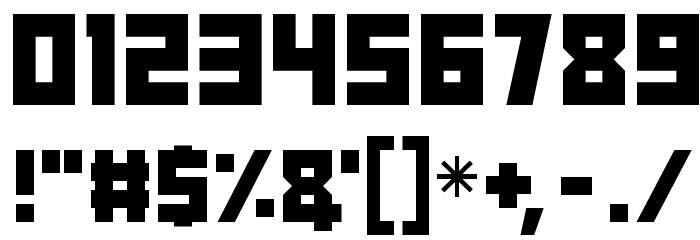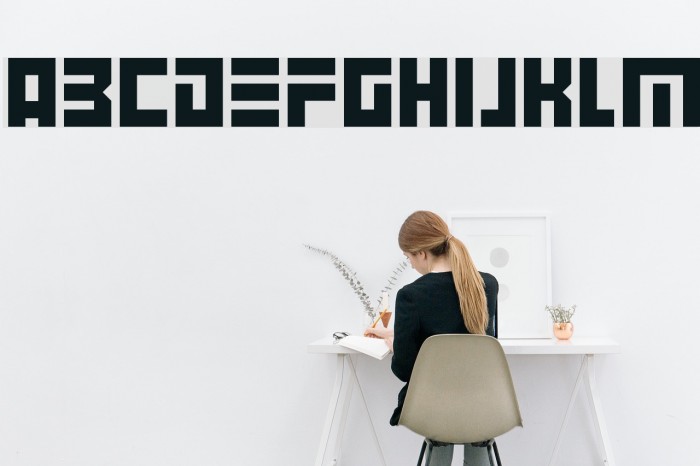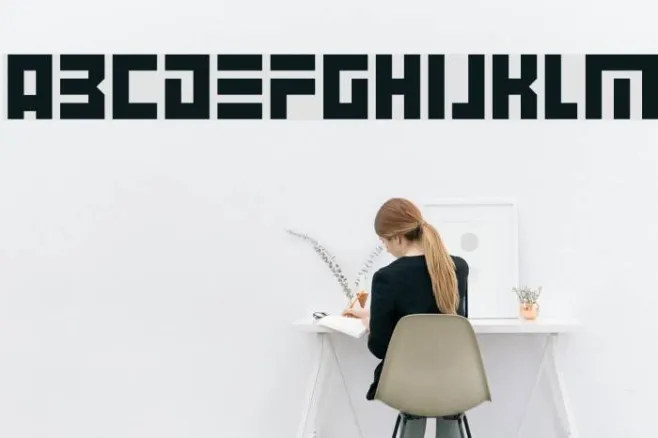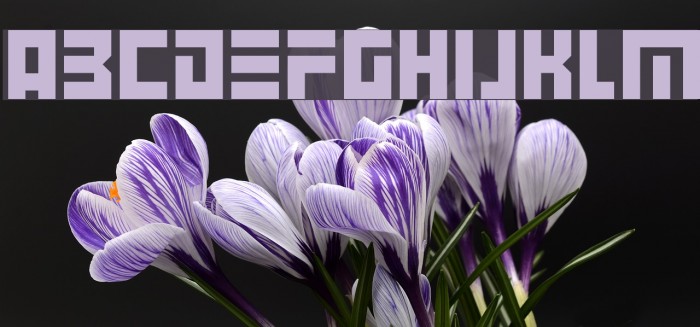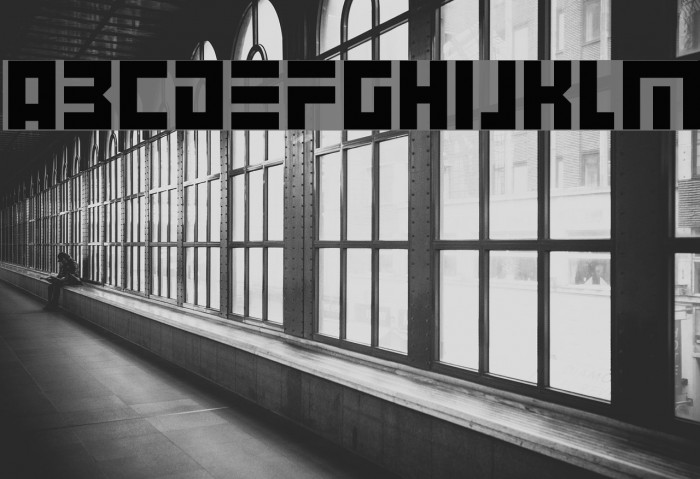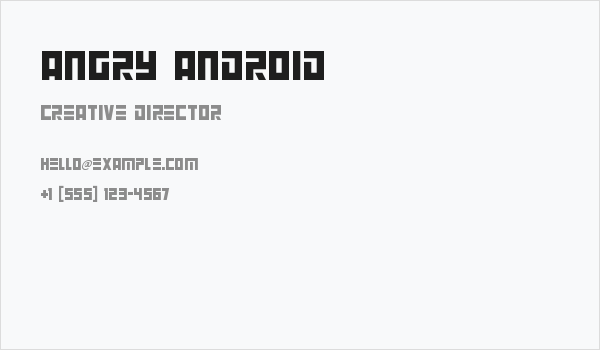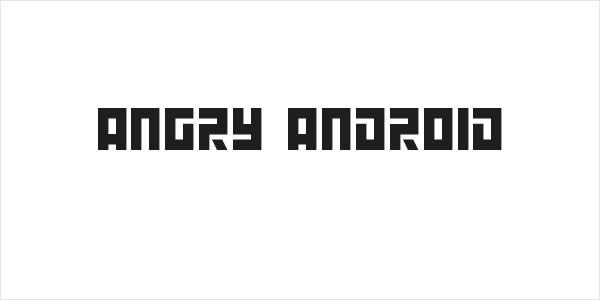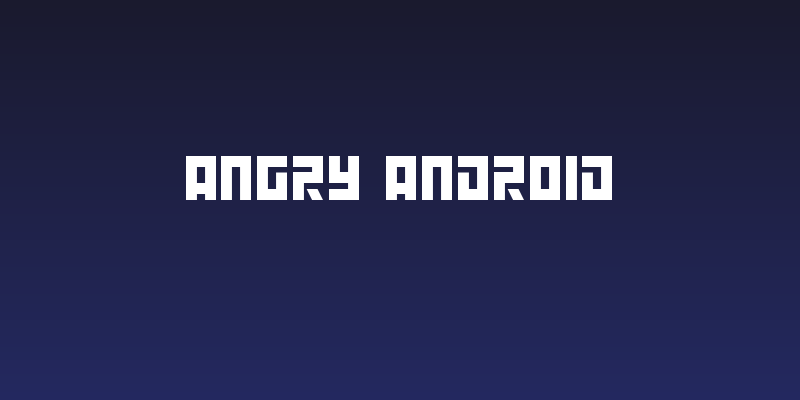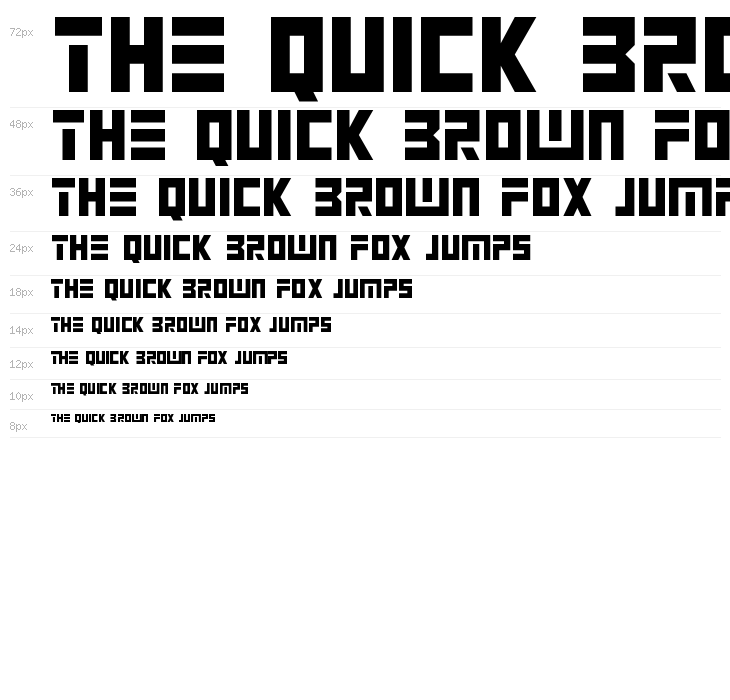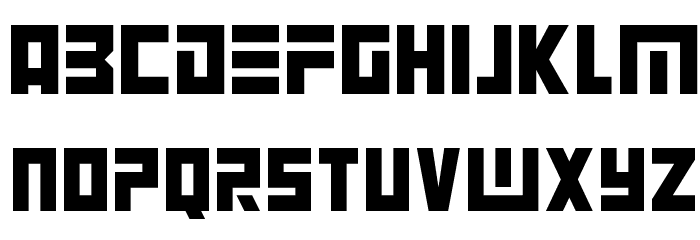
Angry Android Font
Angry Android Description
This font features a bold, geometric design with a futuristic and robotic aesthetic. Each character is constructed with sharp angles and straight lines, creating a blocky and mechanical appearance. The uppercase and lowercase letters maintain a consistent height, contributing to a uniform look. The numbers and special characters follow the same angular style, ensuring cohesion across all elements. This font's strong visual impact makes it suitable for projects that require a modern and edgy feel.
| Proposed Projects | Ideal for technology branding, video game titles, sci-fi posters, and digital interfaces. |